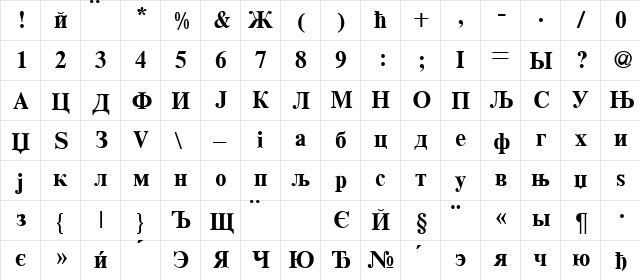
RomanCyrillic BoldA
Design Context for RomanCyrillic Typeface
RomanCyrillic is a composed and adaptable typeface that performs quietly and consistently across a wide range of design contexts. The heavy weight commands attention and anchors typographic hierarchies.